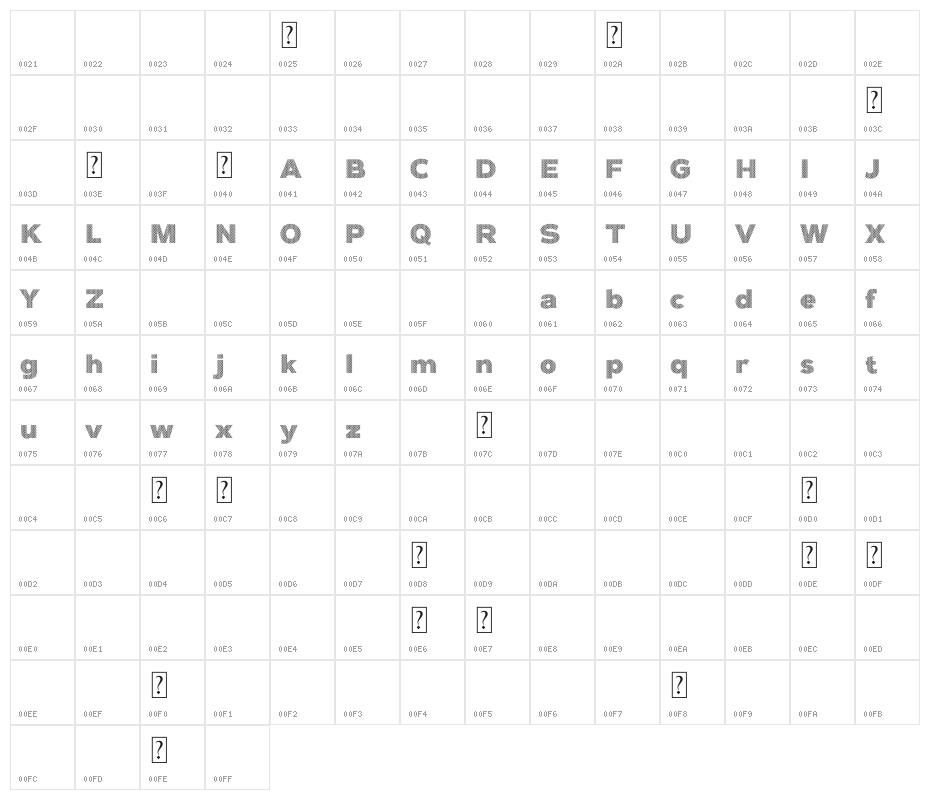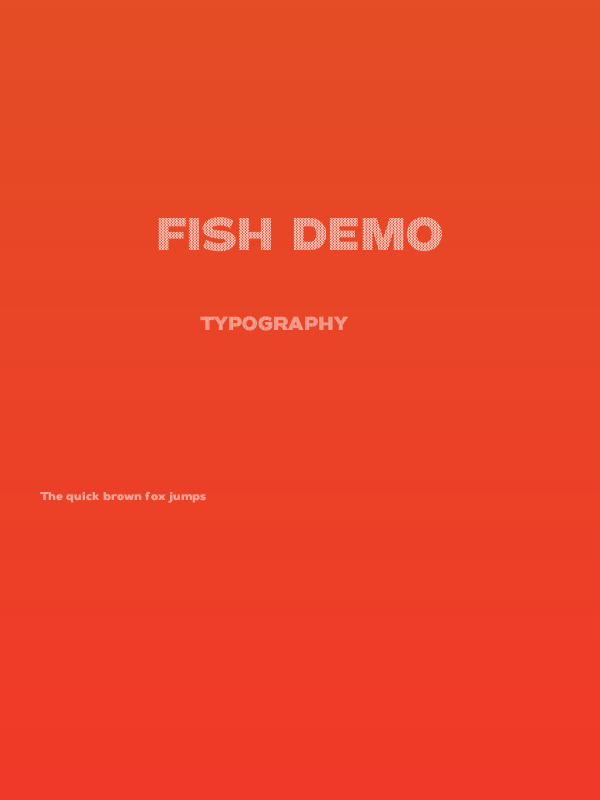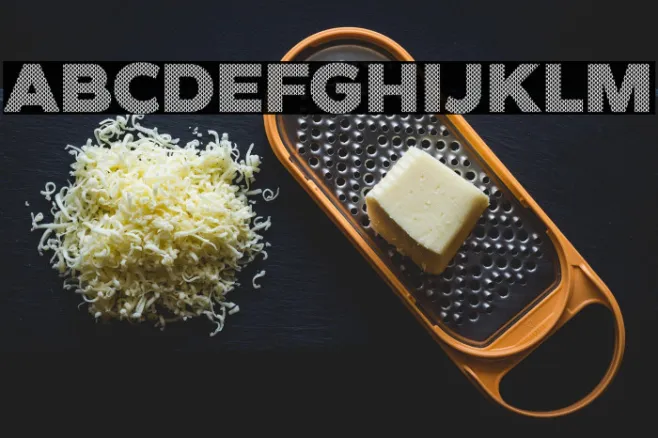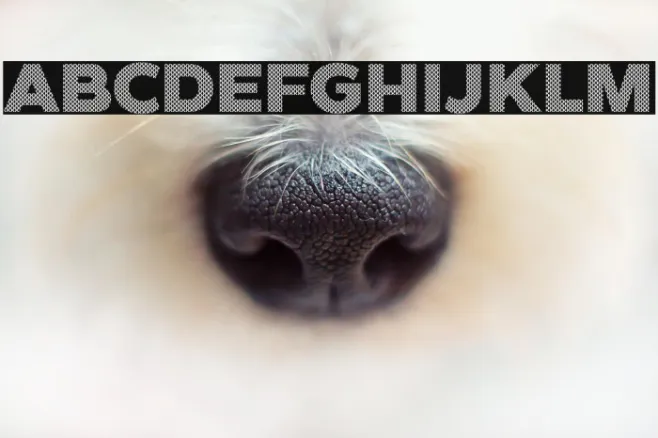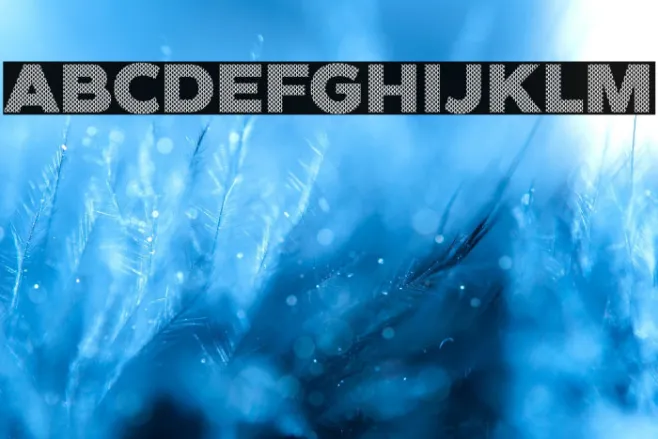
Fish Demo Font
Fish Demo Description
This font features a bold, decorative style with a unique dotted pattern filling each character. The uppercase and lowercase letters maintain a consistent weight and width, creating a cohesive look. The design is eye-catching and playful, making it suitable for creative projects that require a distinctive visual impact. The characters are well-defined, with clear edges and a modern aesthetic. The absence of serifs and the uniformity of the dots contribute to a clean and contemporary appearance. This font is ideal for use in projects where a bold statement is needed, such as posters, advertisements, or branding materials.
| Proposed Projects | Posters, advertisements, branding materials, creative designs. |